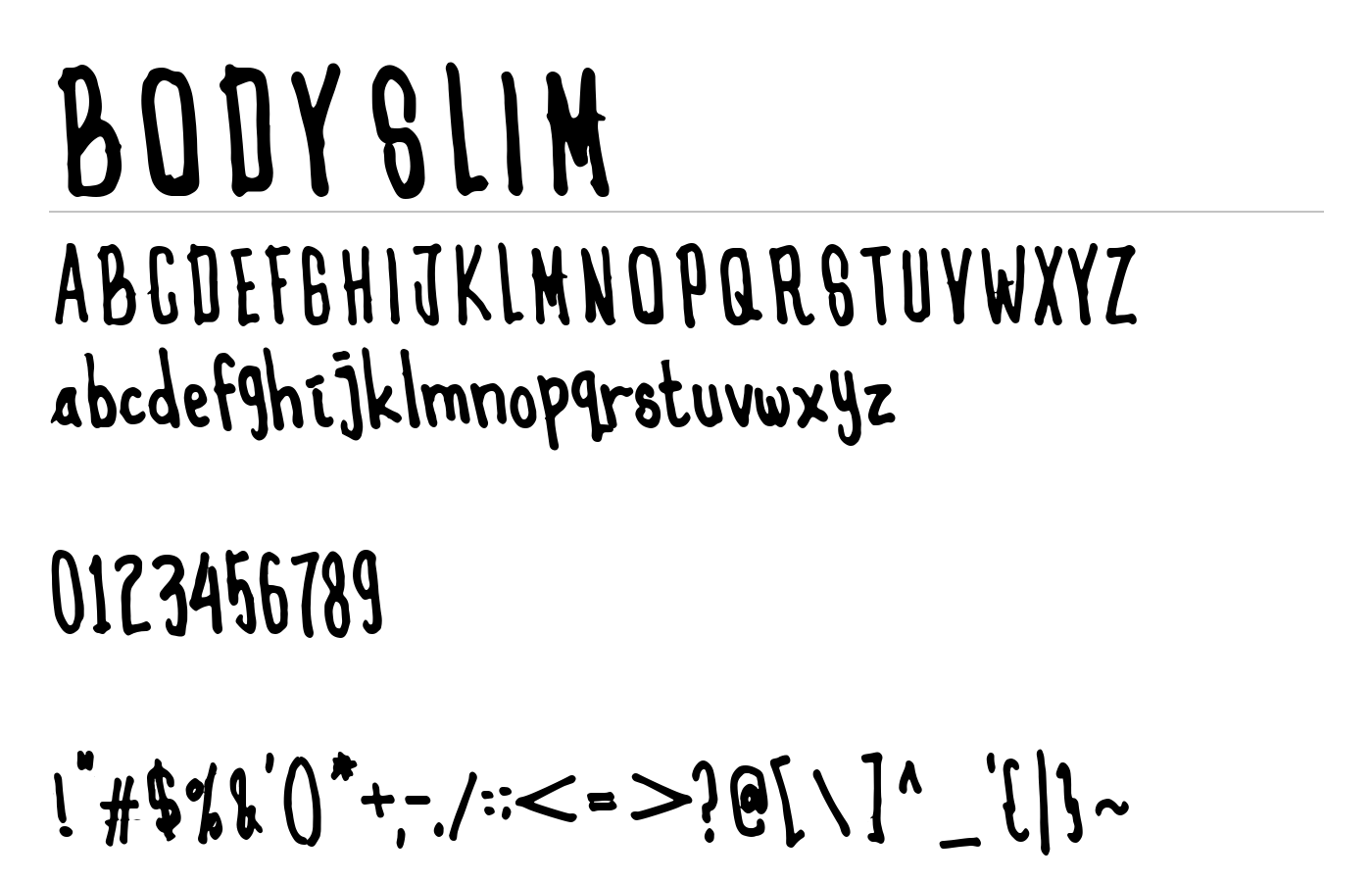
BODY SLIM is a quirky, narrow sans serif font with an irregular, hand-drawn feel that adds a playful and casual character. Its tall, slim letterforms feature uneven strokes and slight wobbliness, giving it a lively and informal vibe, perfect for creative and fun designs. This font works well for posters, quirky branding, or headlines that want to express uniqueness and personality.
BODY SLIM Font